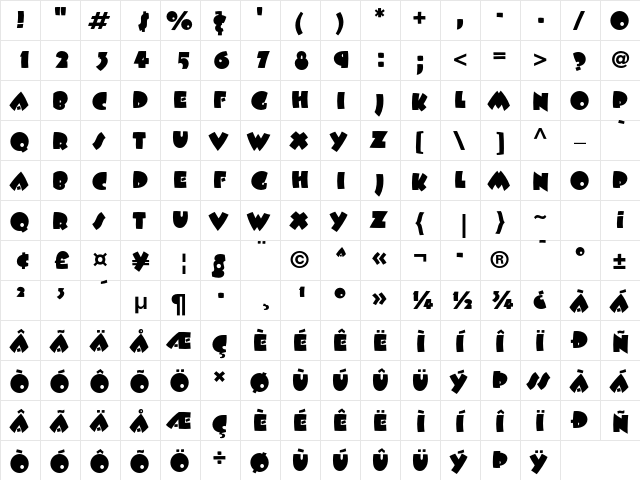
ITC Beesknees Std Regular
| Designer | David Farey |
Design Context for ITC Beesknees Std Typeface
ITC Beesknees Std is a composed and adaptable typeface that performs quietly and consistently across a wide range of design contexts.
Pro Tip: Use ITC Beesknees Std in both headline and body roles to test its range before committing to a single application.